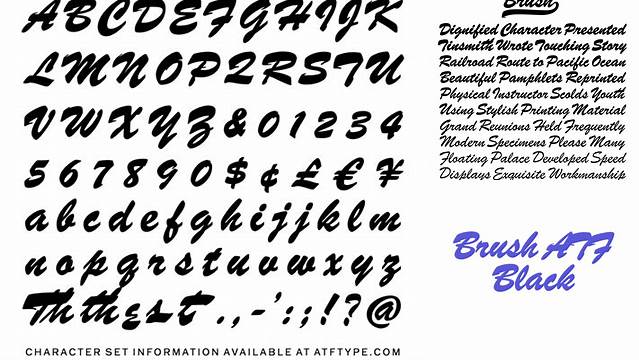
What is Brush ATF Black Font?
Brush ATF Black is a typeface that exudes a raw, hand-lettered feel. It’s part of the larger Brush family designed by the American Type Founders (ATF) in the early 20th century, and the Black variant is particularly striking due to its heavy weight and bold strokes. This font gives off a vintage yet contemporary vibe, making it incredibly versatile for a wide range of design projects. When you think about brush fonts, Brush ATF Black is one that often comes to mind for its distinct personality and strong presence. Its robust, textured appearance lends itself well to designs that need a touch of handcrafted authenticity.
The History and Origins of Brush ATF Black Font
To truly appreciate Brush ATF Black, let’s take a quick trip back in time. The American Type Founders (ATF) was a major player in the type industry during the late 19th and early 20th centuries. They were known for producing high-quality typefaces, and the Brush family was one of their standout creations. Brush ATF Black, specifically, emerged as a response to the growing demand for fonts that mimicked the look of hand-lettering. This was a time when designers were looking for ways to break away from the rigid, formal typefaces of the past and embrace a more organic, expressive style. The designers at ATF masterfully captured the essence of brush strokes, creating a font that feels both authentic and timeless. Its historical roots give it a unique character, making it a compelling choice for projects that aim to evoke a sense of nostalgia or heritage. Understanding this history enriches your appreciation for the font and its potential applications.
Key Characteristics and Features of Brush ATF Black Font
Brush ATF Black is characterized by its bold, thick strokes and slightly irregular edges, giving it a natural, hand-painted appearance. The font’s texture and weight make it highly legible even at larger sizes, which is one reason why it’s a favorite for headlines, posters, and other display purposes. Its informal, energetic style makes it a great choice for designs that need to convey a sense of dynamism or creativity. The letterforms have a certain fluidity, reminiscent of actual brushstrokes, which adds to its unique charm. Think of each character as having its own personality, shaped by the subtle variations in thickness and texture. This font is not just about letters; it’s about the feeling and energy they convey. Whether you’re designing a logo, a T-shirt, or a website header, Brush ATF Black can bring a touch of handcrafted elegance to your work.